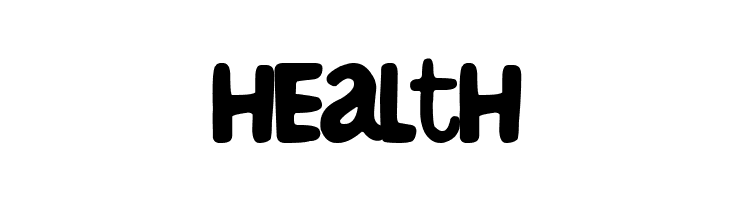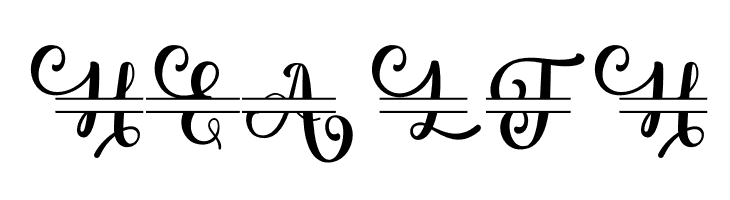
A bold, italicized font with a modern, angular design.
A modern geometric font with sharp angles and a futuristic aesthetic.
A modern, geometric font with sharp, italicized characters.
A geometric, modern font with thin, clean lines and a futuristic aesthetic.
A thin, italicized font with a modern, geometric style.
An ornate Blackletter-style font with intricate flourishes and sharp, angular strokes.
A bold, calligraphic script font with dynamic strokes and angular edges.
A bold, calligraphic script font with dynamic, angular strokes.
A playful, bold font with rounded, outlined characters for a fun and approachable look.
A bold, calligraphic script font with high contrast and dynamic strokes.
A playful, bold, and decorative font with intricate patterns and cut-out shapes.
A playful, bold font with hand-drawn, whimsical characters and irregular edges.
A playful, handwritten font with bold strokes and a casual style.
A playful, rounded font with a smooth, bold appearance and friendly style.
A playful, hand-drawn font with elongated, quirky letterforms.
A modern, elongated font with thin, elegant strokes and a sophisticated appearance.
A distressed, grunge-style font with a vintage typewriter aesthetic.
A bold, high-contrast serif font with elegant and dramatic features.
A bold, high-contrast font with elegant and dramatic strokes.
A bold, geometric font with sharp angles and a strong, modern presence.
A sophisticated script font with elegant, flowing cursive letterforms.
A bold, modern sans-serif font with thick, uniform strokes.
A bold, italic sans-serif font with a modern and dynamic style.
A clean, modern sans-serif font with a condensed style.
A bold, condensed sans-serif font with a modern and impactful style.
Bold, condensed, and italic with high contrast, perfect for striking headlines.
A bold, condensed sans-serif font with a modern and clean look.
A modern, condensed sans-serif font with an extra light weight and minimal contrast.
A sleek, modern sans-serif font with a condensed, extra light, and italic style.
A sleek, modern sans-serif font with a condensed and italicized style.
A modern, condensed sans-serif font with a light weight and low contrast.
A sleek, modern sans-serif font with a light, italic, and condensed style.